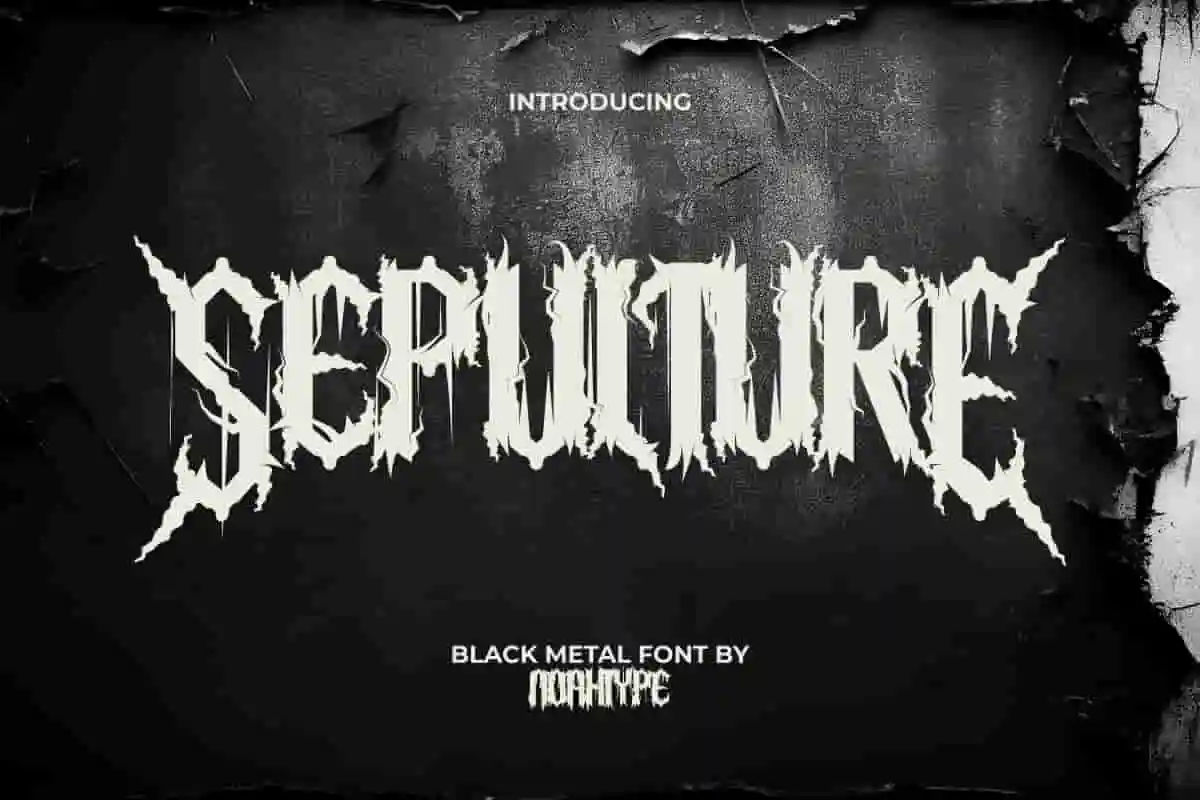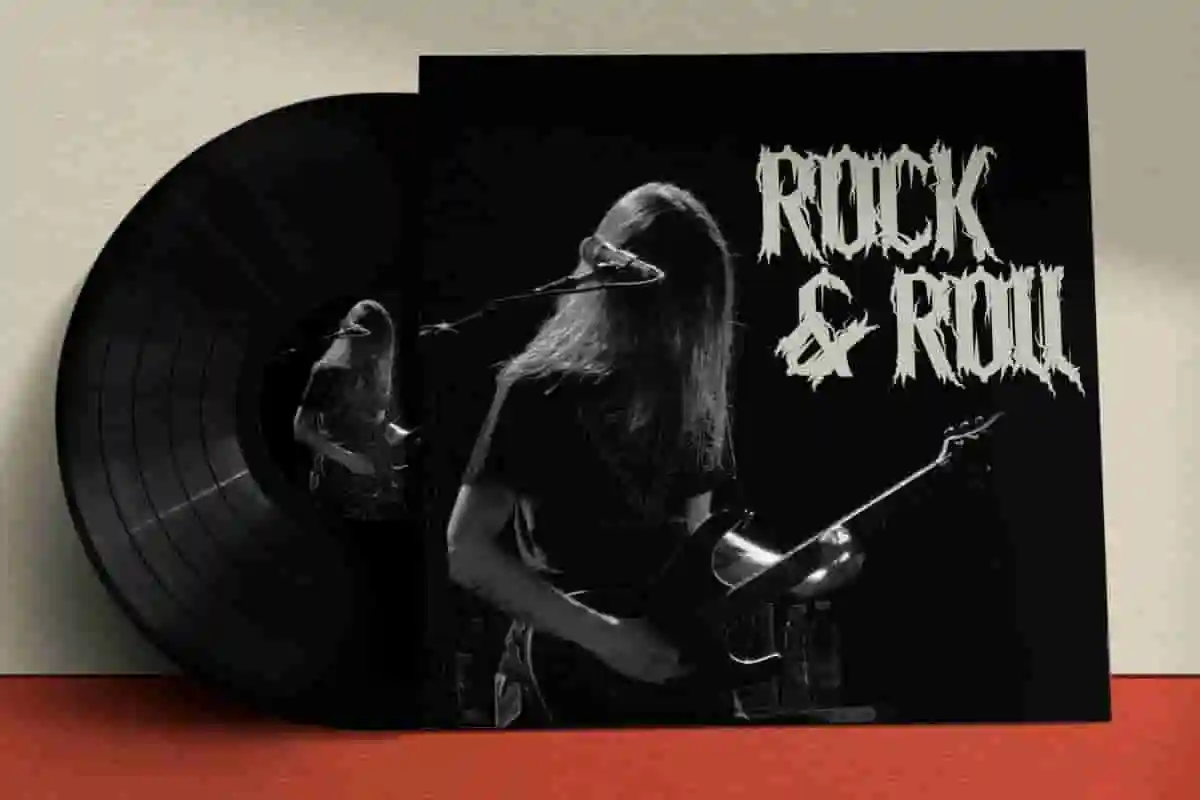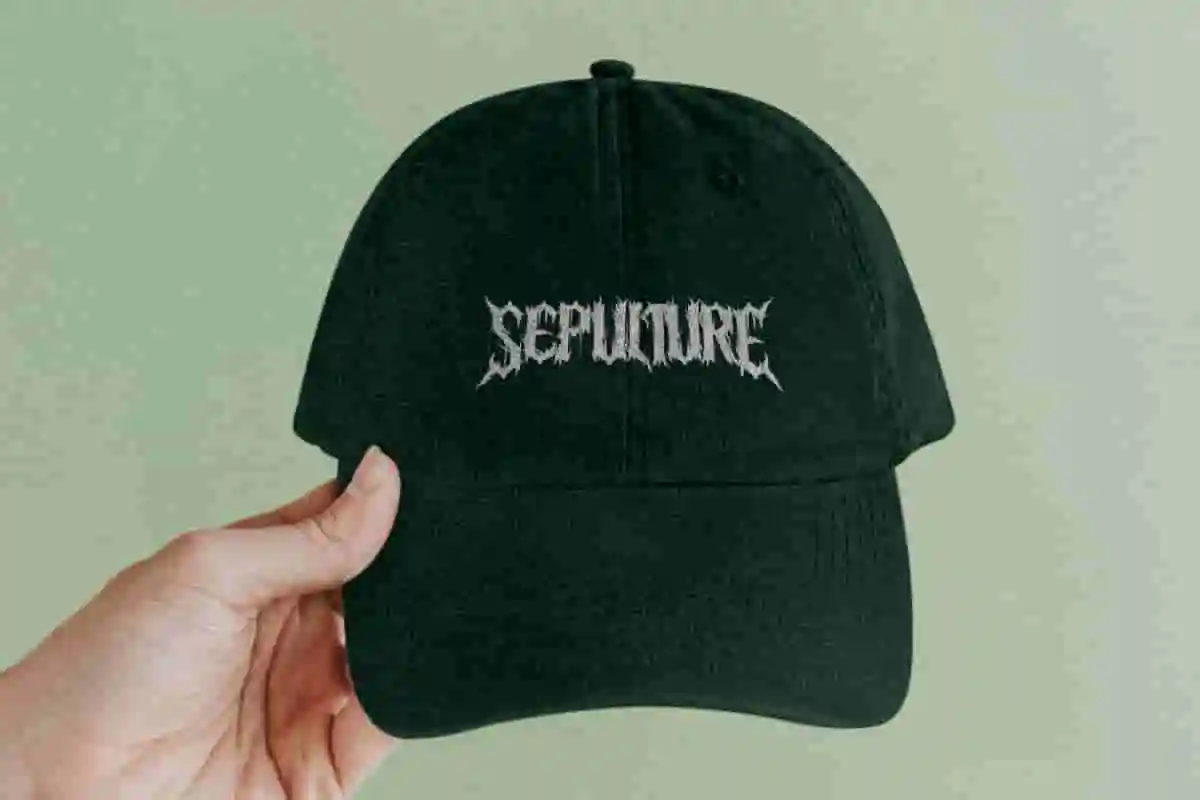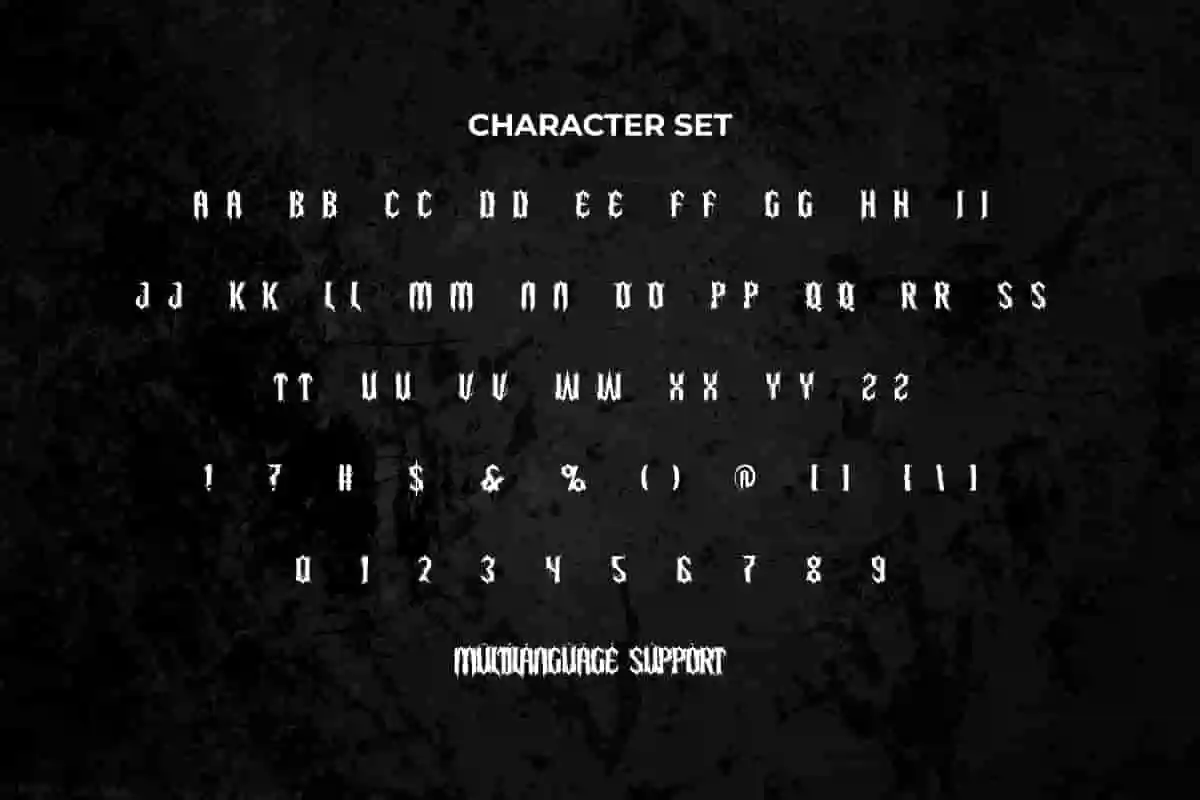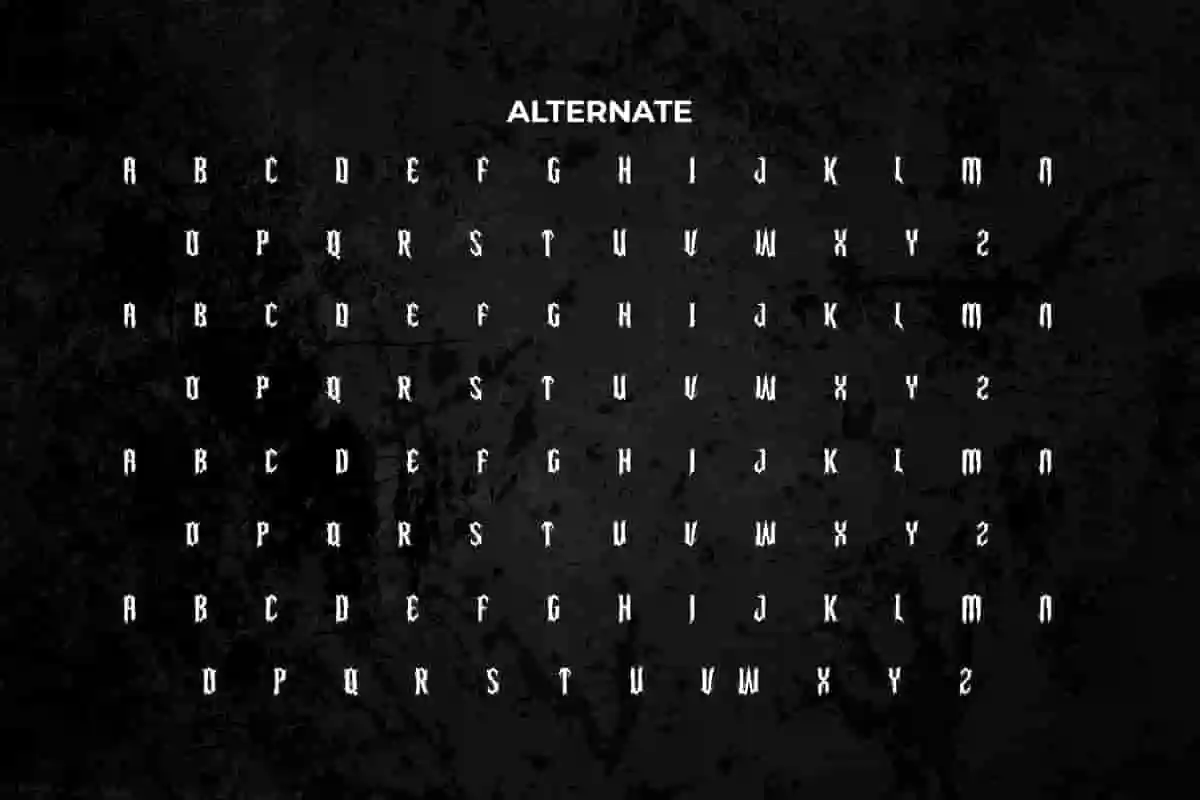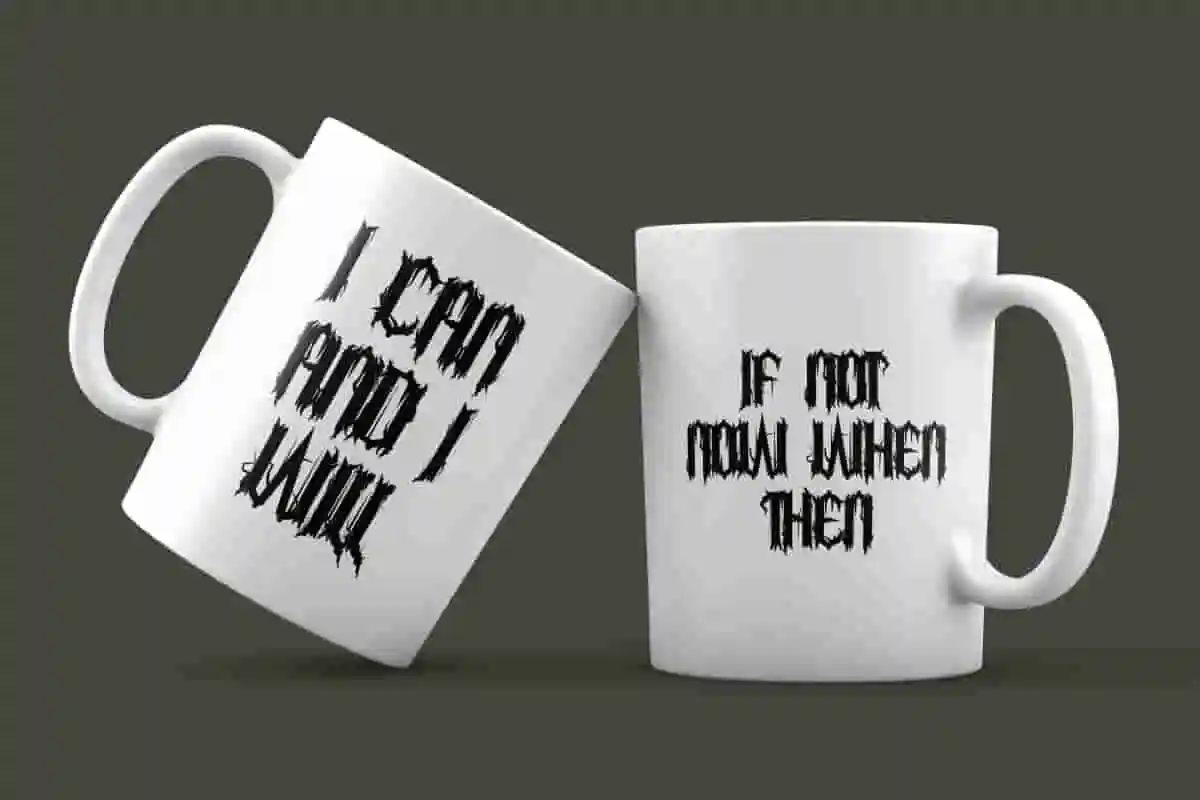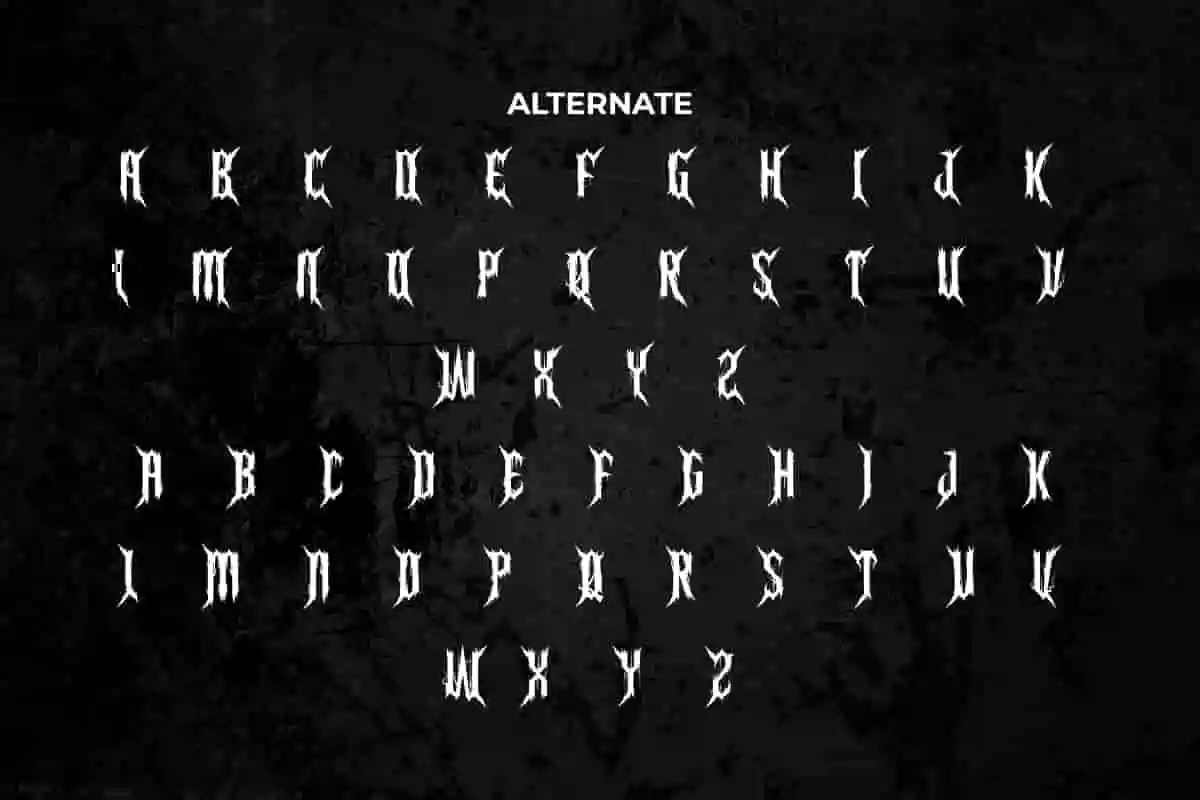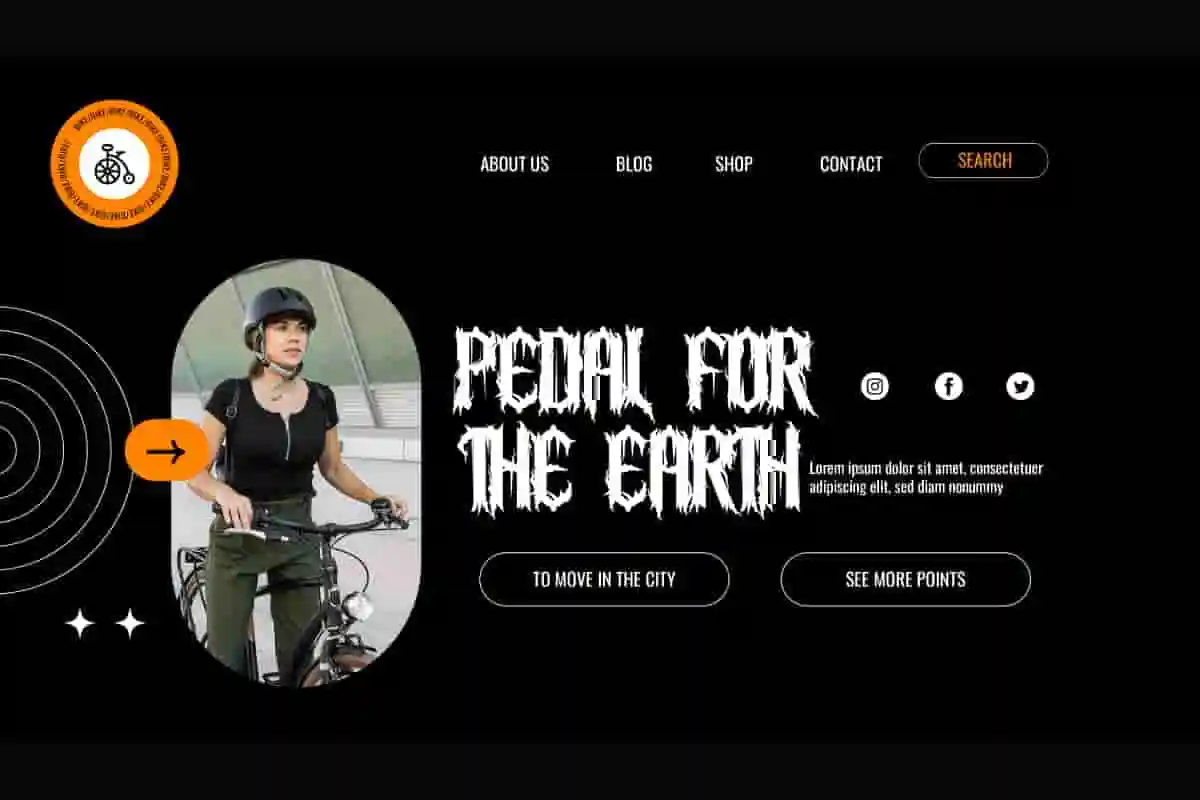
Sepulture Font is a hardcore scary black metal font by NoahType. Inspired by some hot bands, This font has an intimidating look with irregular lines that resemble roots and a spooky tree trunk shape. It will be perfect for any designs, such as brand image, cover, custom design, invitation, label, marketing material, menu, poster, product packaging, quotes, signage, web, and many more!
Sepulture Font includes full set of ALL CAPS for Uppercase and Lowercase Basic Characters, Numerals, Punctuation and Symbol. The Alternate characters of this font will give amazing touch and also a perfect choice for many industries, such as accessories, advertising, art, café, event or festival, fashion, game, movie, printing, publishing, etc.